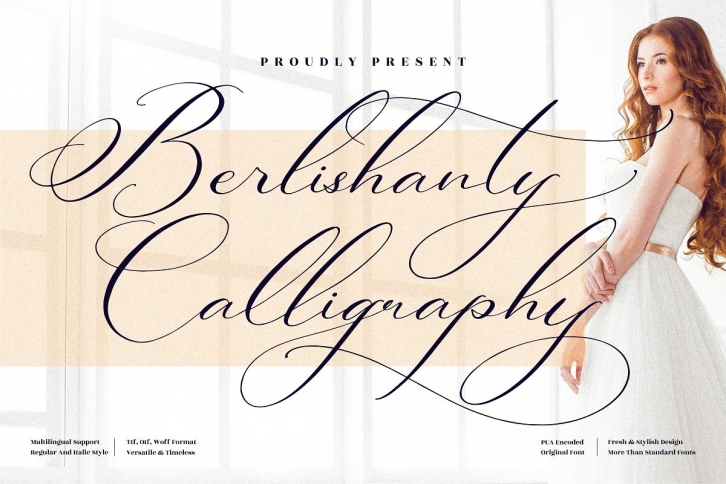
Berlishanty Calligraphy - Beautiful Script Font, from Perspectype Studio, is a romantic calligraphy font, suitable for any projects such as: logos, branding projects, homeware designs, product packaging, mugs, quotes, posters, shopping bags, t-shirts, book covers, name card, invitation cards, greeting cards, label, photography, watermark, special events, and all your other lovely projects that need a beautiful script taste.
- Uppercase and Lowercase
- Numerals
- Punctuations (OpenType Standard)
- Accents (Multilingual Characters)
- Ligatures and Alternates